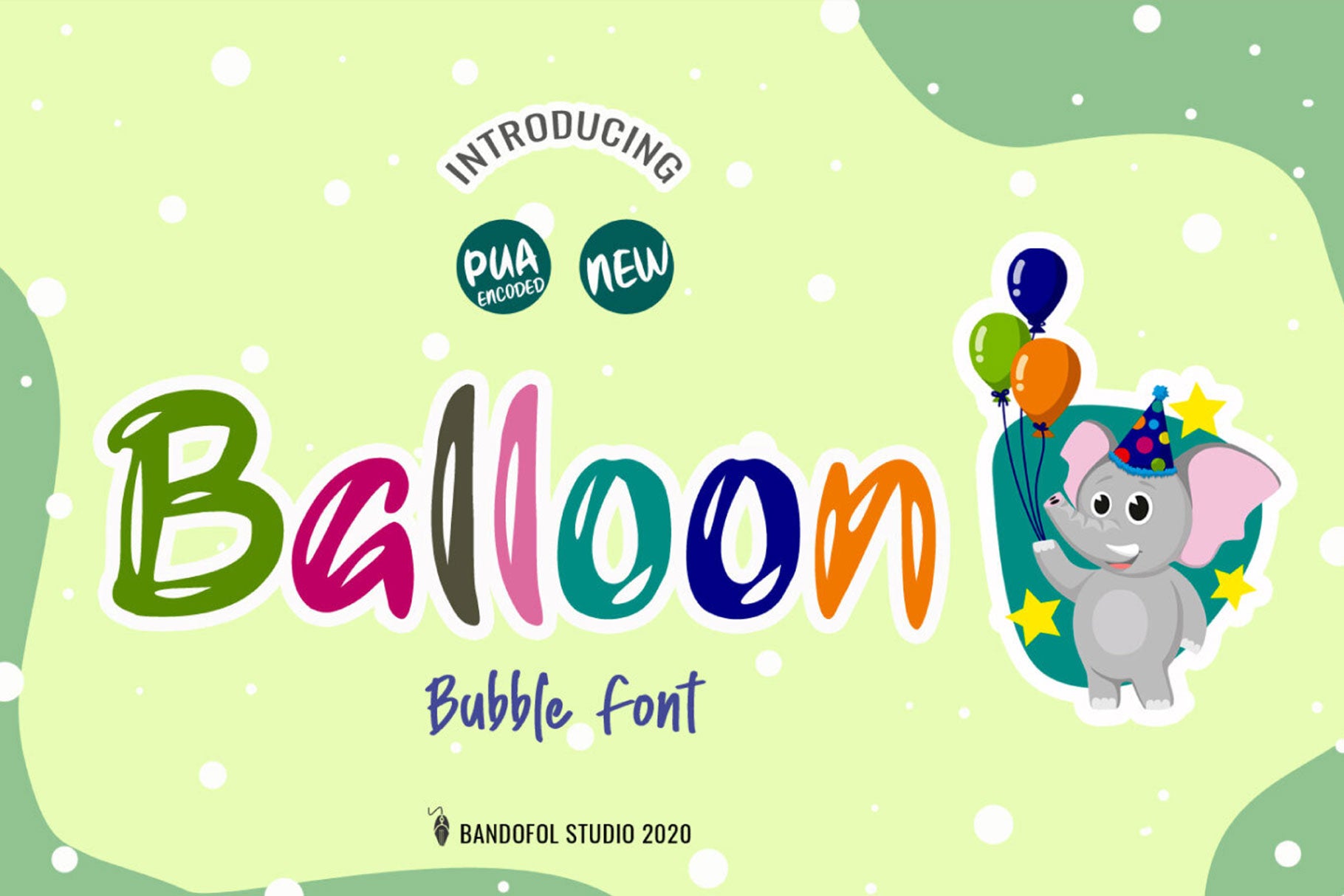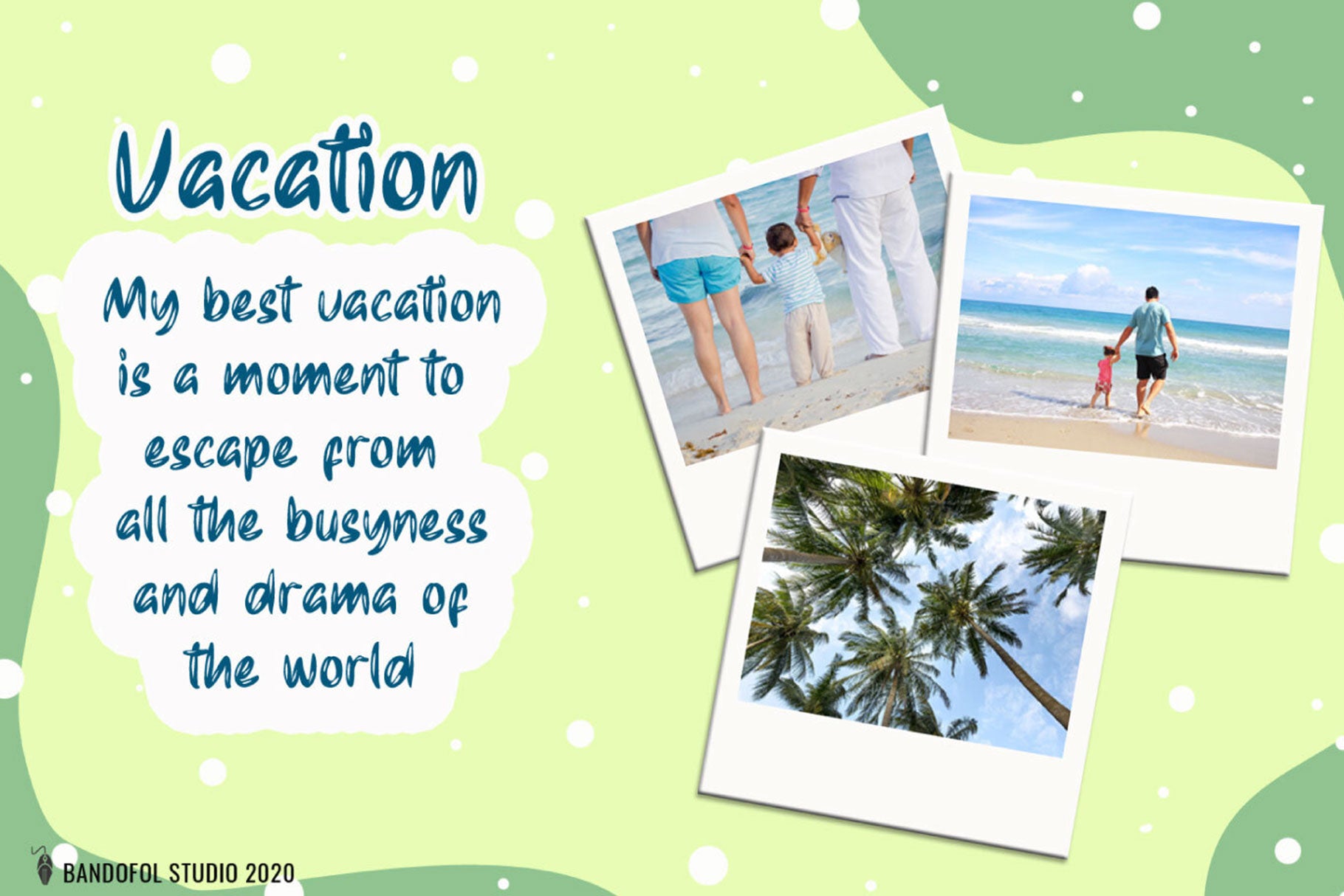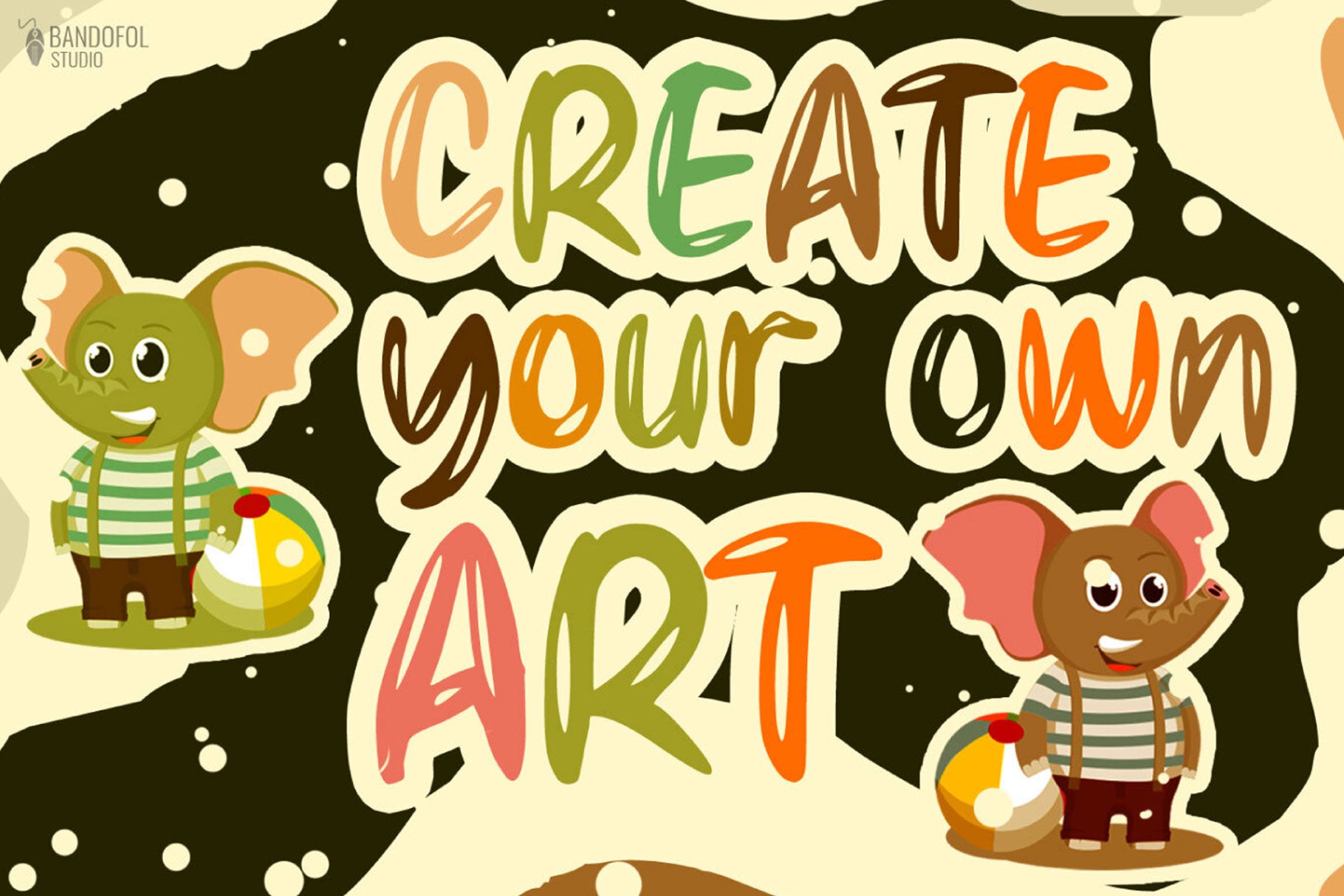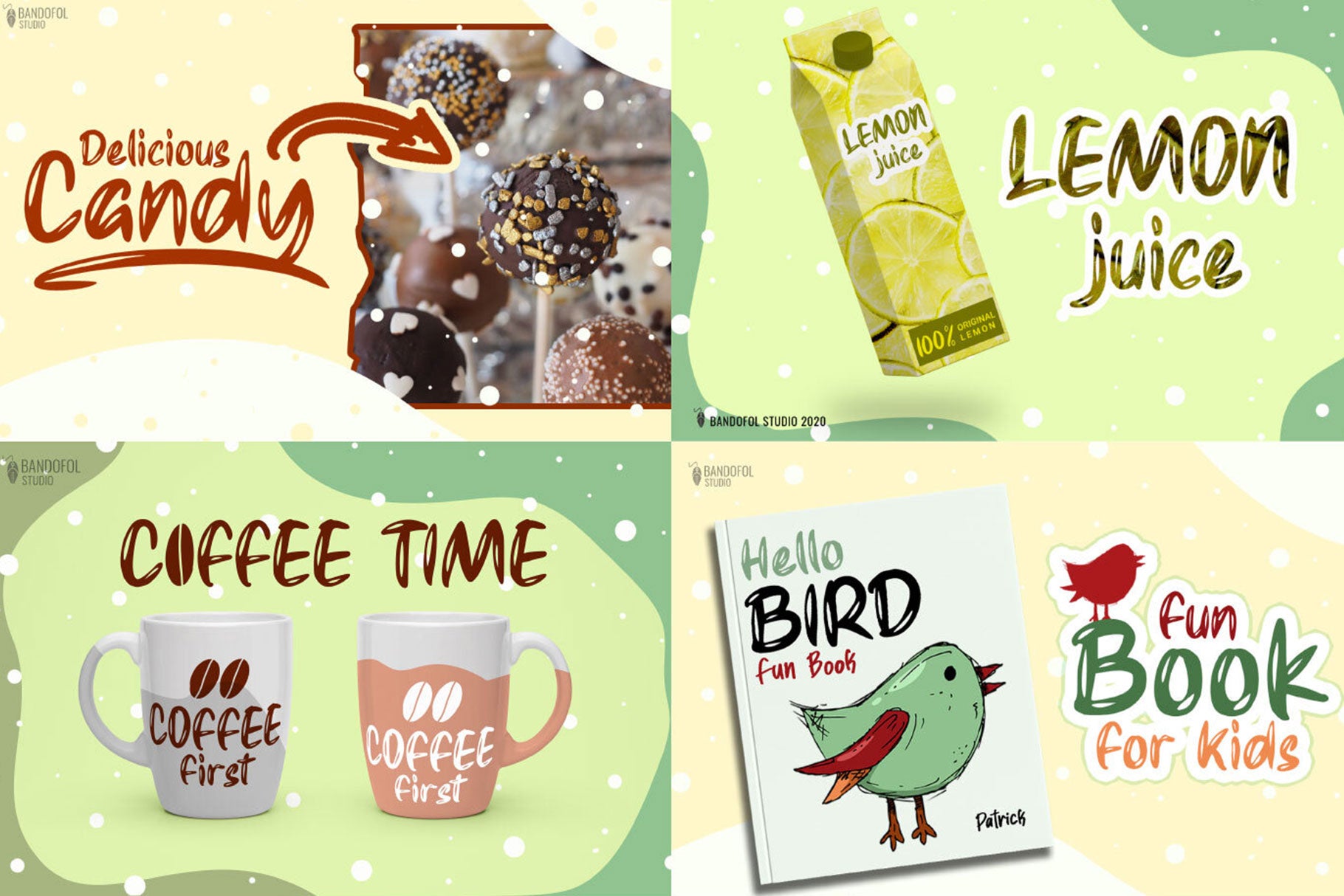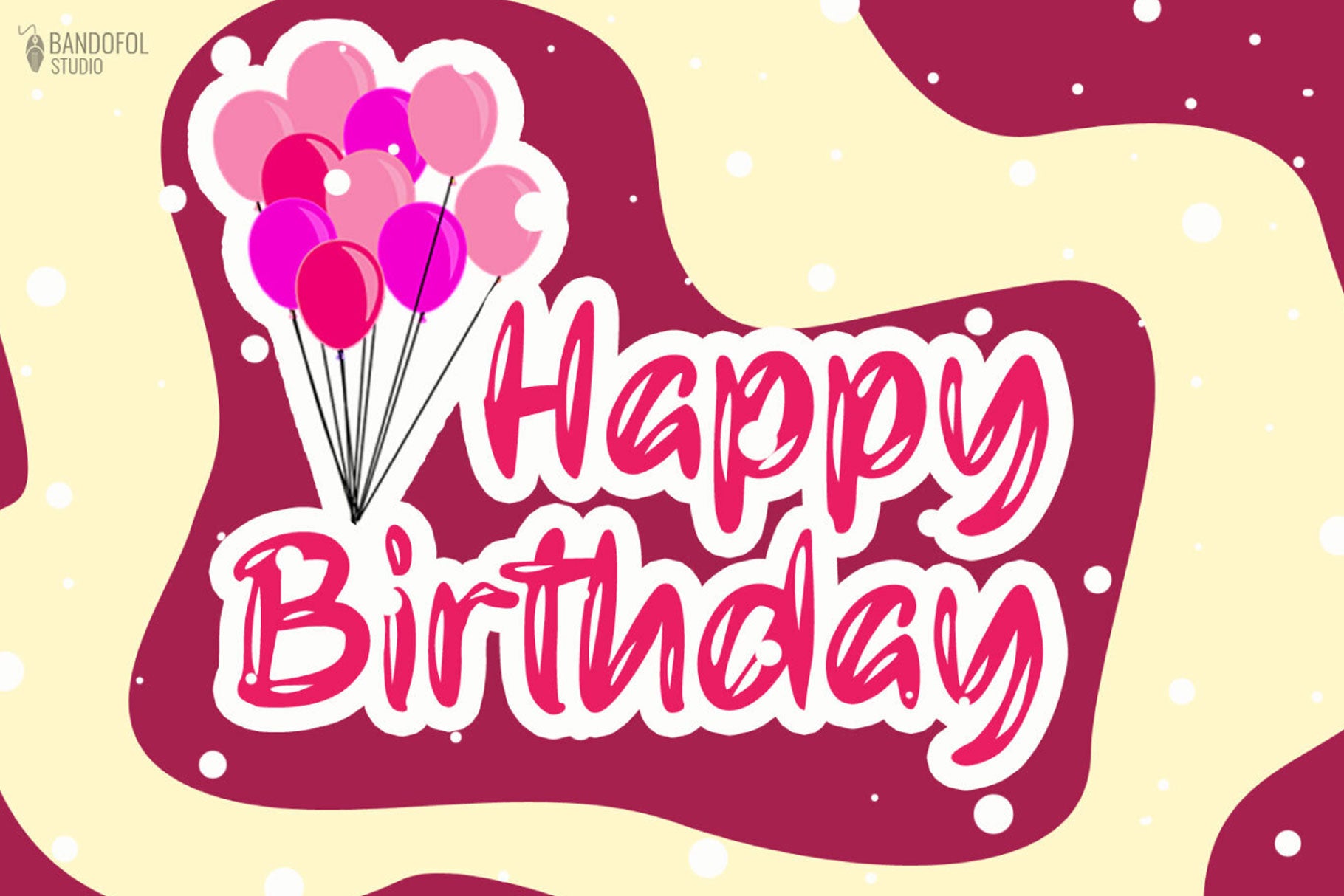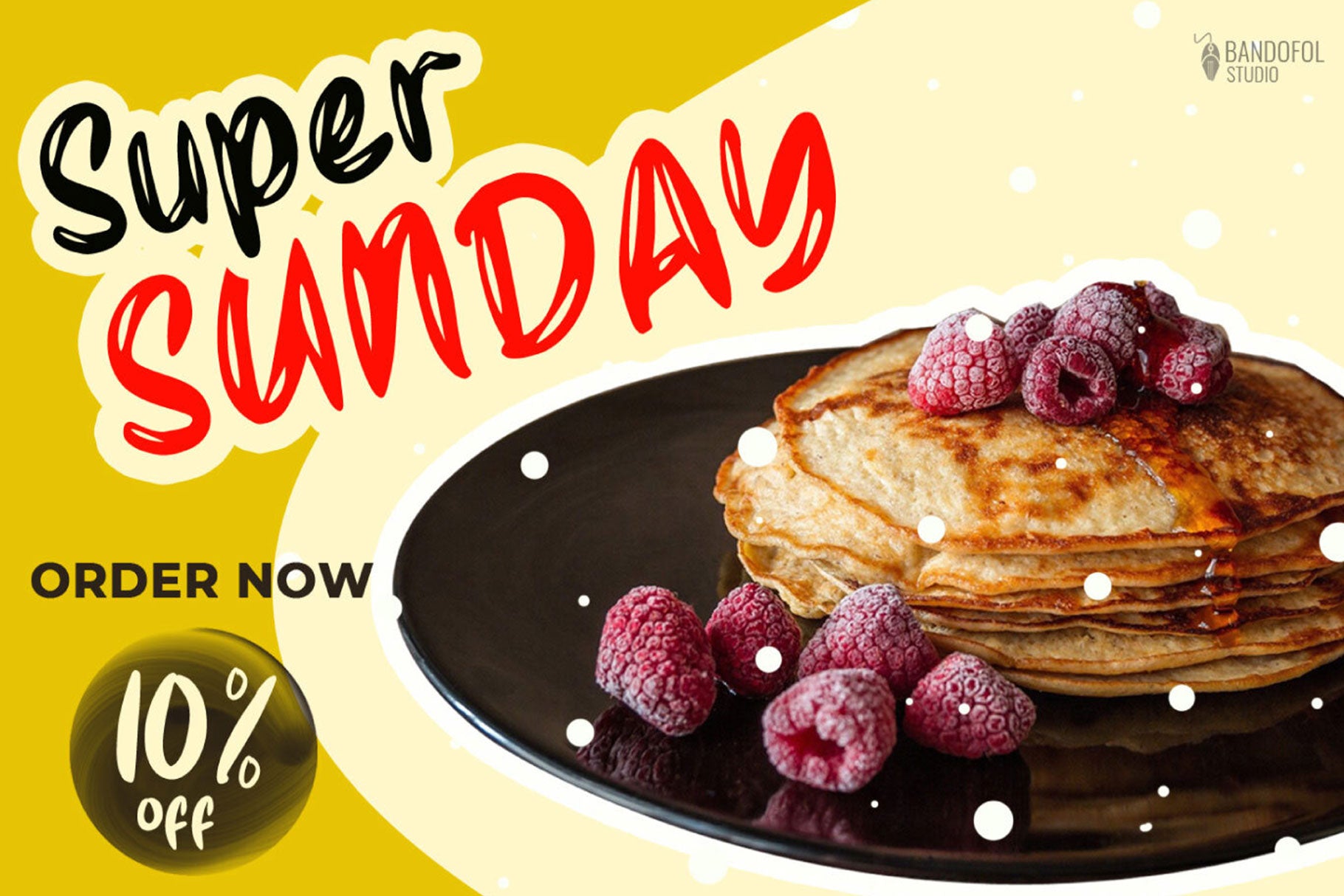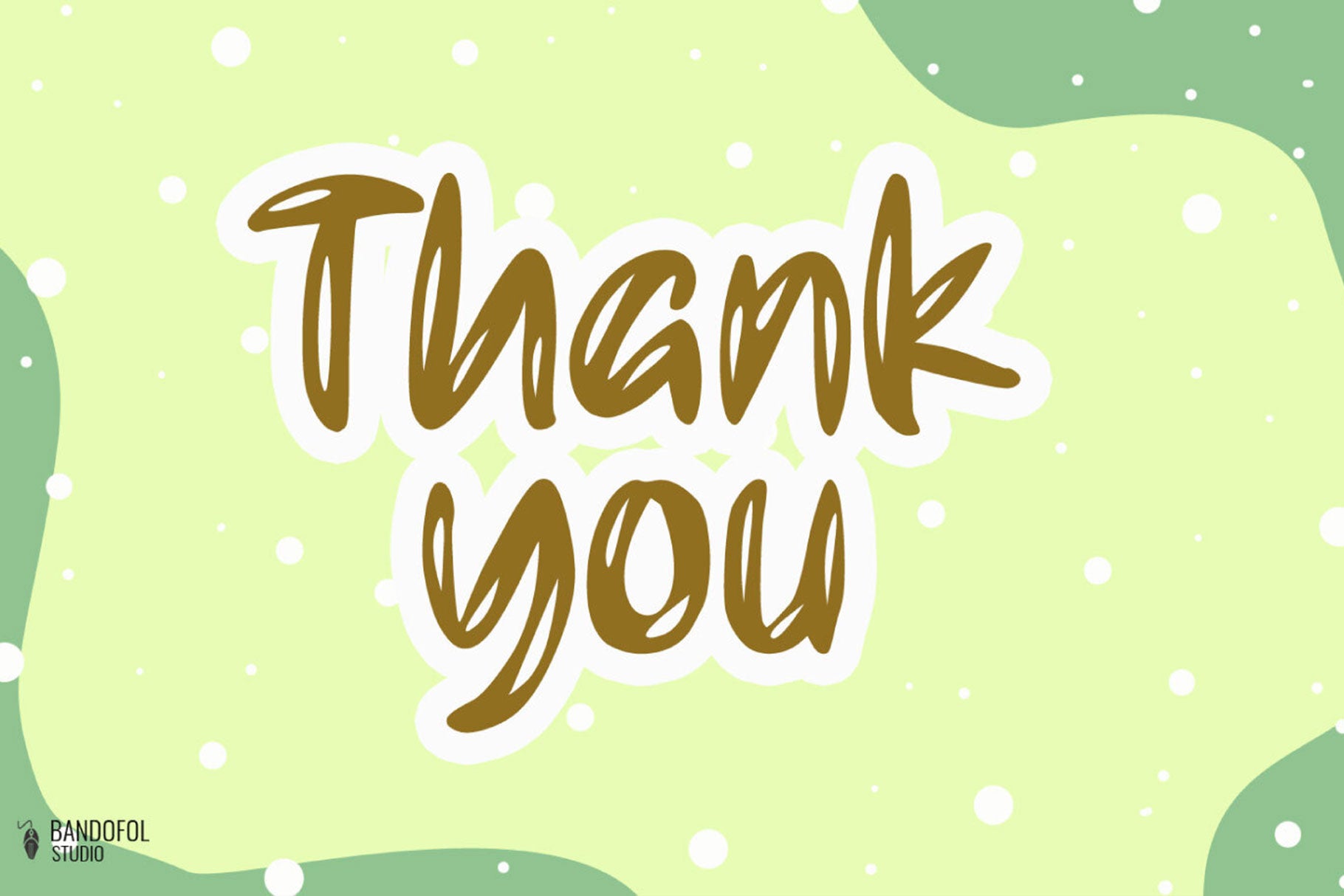
Balloon Font, from Bandofol Studio, is a cute bubble font, suitable for any projects such as: logos, branding projects, homeware designs, product packaging, mugs, quotes, posters, shopping bags, t-shirts, book covers, name card, invitation cards, greeting cards, label, photography, watermark, special events, and all your other lovely projects that need a cute playful touch.